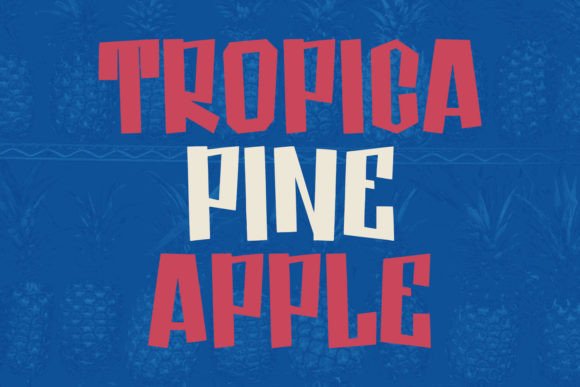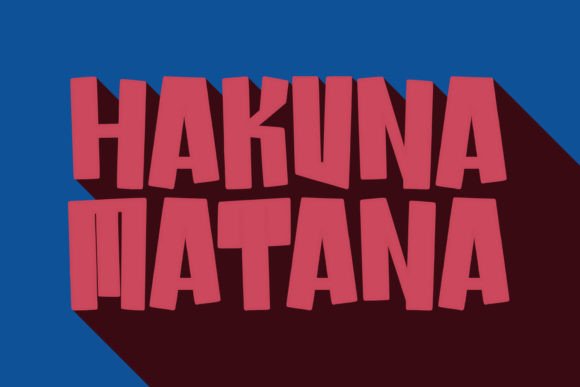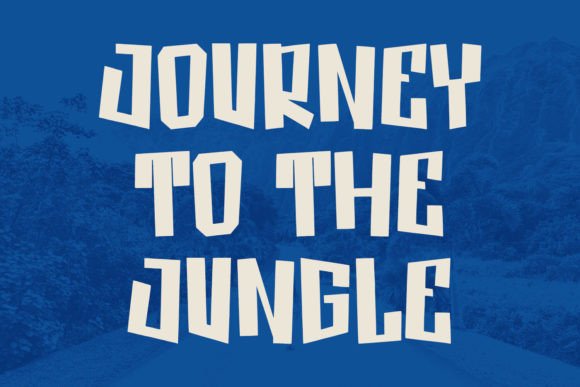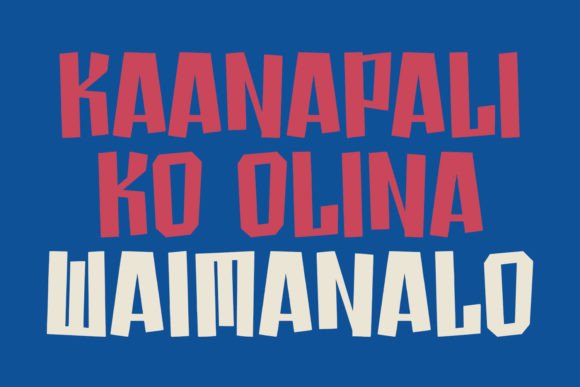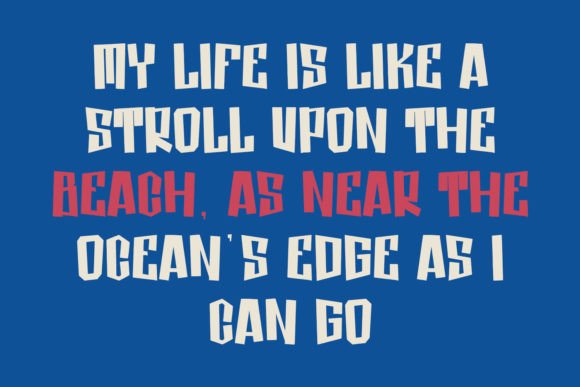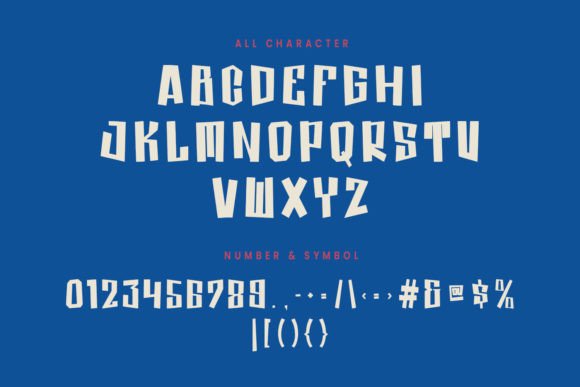
Introducing Emivast Summer Display Font: The Perfect Typeface for Sun-Kissed Designs
As the warmth of summer approaches, designers and crafters are on the lookout for typography that captures the essence of the season. Emivast Summer Display Font is here to bring a splash of fun and vibrancy to your projects. This delightful typeface is designed to infuse your designs with the carefree spirit of summer, making it perfect for a wide range of creative endeavors.
What Makes Emivast Summer Display Font Special?
Emivast Summer Display Font stands out with its cheerful design and lively characters. Each letter is crafted to radiate positivity and energy, reminiscent of sun-soaked days and balmy nights. The font’s playful vibe is infectious, making it an excellent choice for designers looking to add a touch of warmth and personality to their work.
Ideal Uses for Emivast Summer Display Font
Emivast Summer Display Font is incredibly versatile and can be used in various design projects, including:
- Posters: Create eye-catching posters for summer events, promotions, or advertisements that demand attention.
- Invitations: Add a touch of summer fun to your invitations for parties, weddings, or other celebrations.
- Social Media Graphics: Elevate your social media presence with engaging graphics that showcase the carefree spirit of summer.
- Branding: Infuse your brand with a playful and vibrant personality that resonates with your audience.
Key Features of Emivast Summer Display Font
Emivast Summer Display Font boasts several key features that make it a standout typeface:
- Vibrant Design: The font’s vibrant design is perfect for creating attention-grabbing headlines and titles.
- Playful Characters: Each character is designed to add a touch of playfulness and whimsy to your designs.
- High-Quality Vectors: The font is crafted with high-quality vectors, ensuring crisp and clear rendering at any size.
Tips for Using Emivast Summer Display Font
To get the most out of Emivast Summer Display Font, consider the following tips:
- Pair with Neutral Backgrounds: Pair the font with neutral backgrounds to create a striking contrast that makes your text pop.
- Experiment with Colors: Don’t be afraid to experiment with different colors to find the perfect combination that matches your brand or design.
- Use in Combination with Other Fonts: Combine Emivast Summer Display Font with other fonts to create a unique and visually appealing typography.
Emivast Summer Display Font is the perfect typeface for designers and crafters looking to add a touch of summer fun to their projects. With its vibrant design, playful characters, and ease of use, this font is sure to bring a splash of warmth and personality to your creative endeavors. So why wait? Embrace the spirit of the season and get creative with Emivast Summer Display Font today!